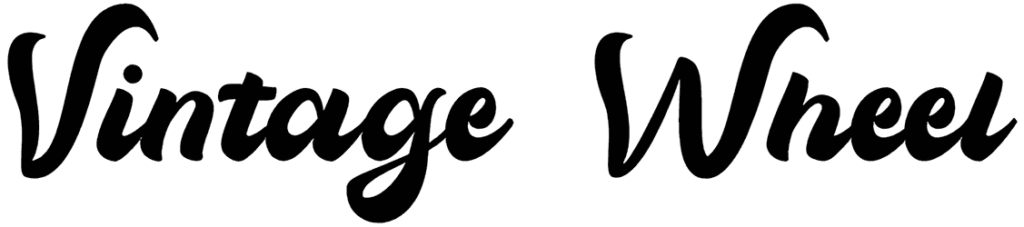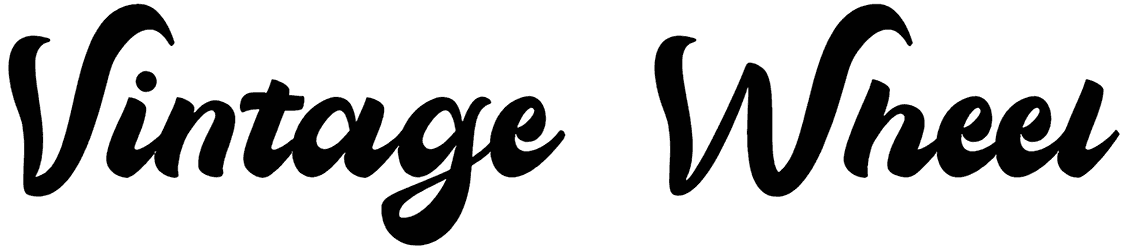
Vintage Wheel Font
The simple design and flawless twists of the letters set Vintage Wheel apart from other script fonts. This stunning old-school font can be used for almost anything, from a poster and greeting card design to food menus, b…
The simple design and flawless twists of the letters set Vintage Wheel apart from other script fonts. This stunning old-school font can be used for almost anything, from a poster and greeting card design to food menus, banners, and branding. Combining modern design with classic handwriting has made using this font add character to your writing and turn it into a masterful work.
Vintage Wheel is a unique vintage script font. Fall in love with its incredibly versatile style and use it to create wedding invitations, retro stationary art, eye-catching social media posts, label, logos, web, quotes, poster, apparel, workshop and much more!